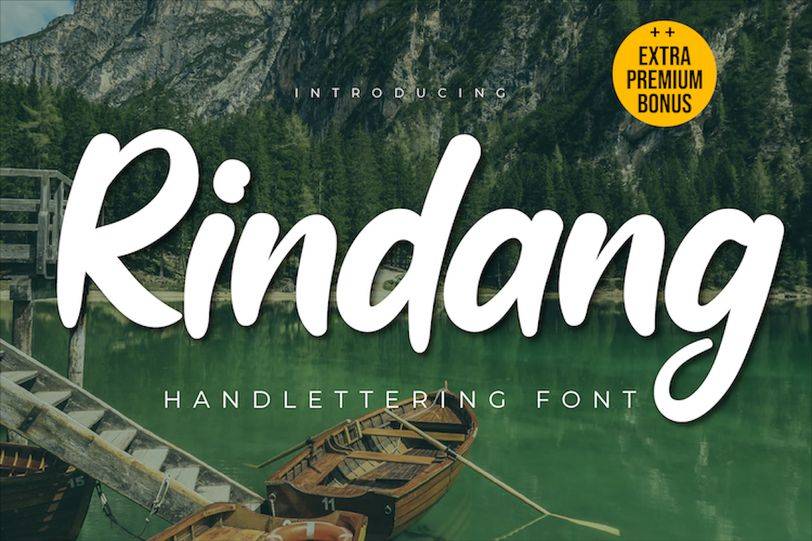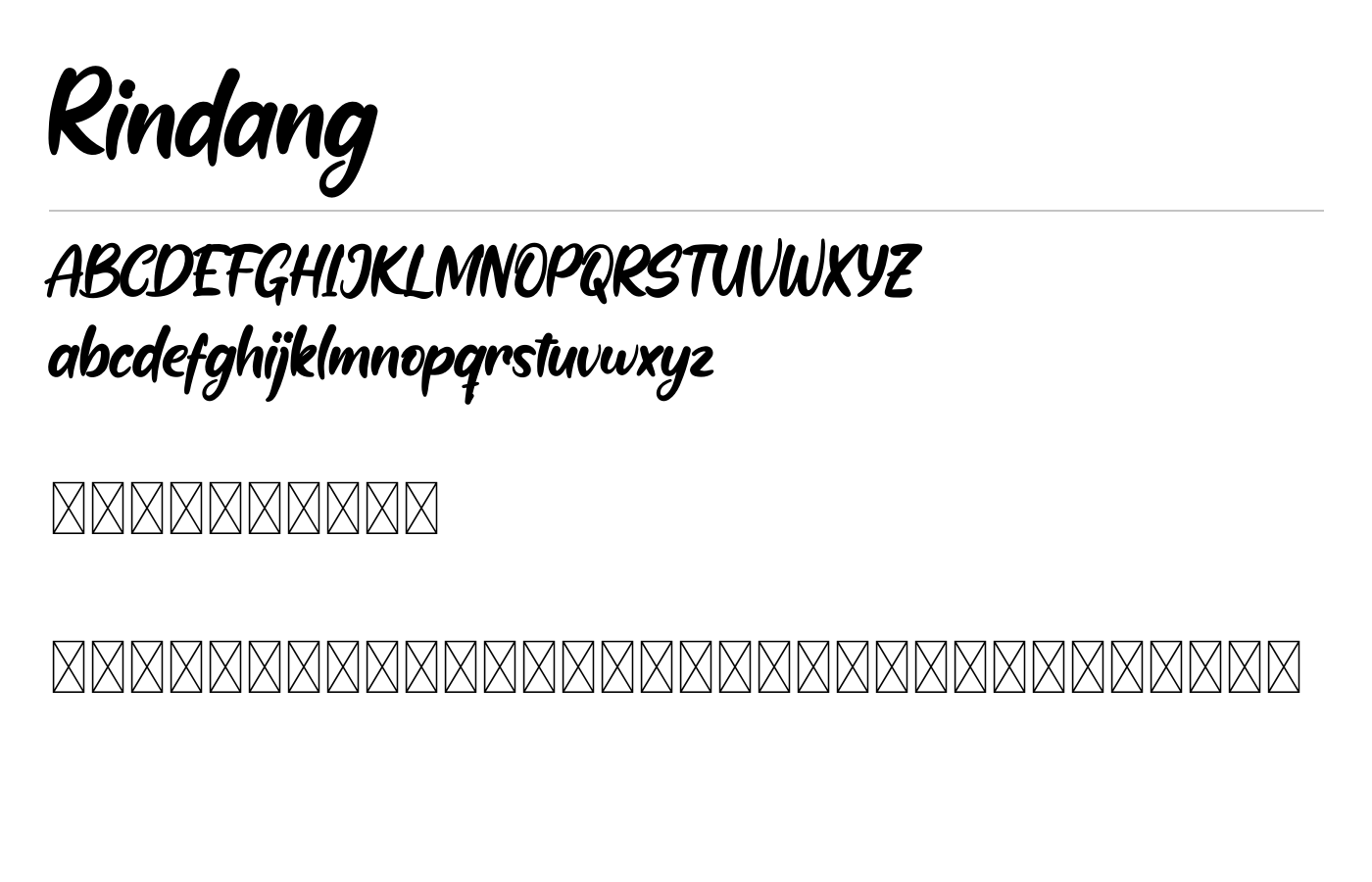
Rindang is a lively, handwritten script font with a bold weight and fluid strokes that give it a friendly and energetic personality. Its casual, slightly slanted letterforms with smooth, rounded edges make it perfect for creative projects, branding, and headlines that need a personal, approachable feel. This font works well in informal contexts like social media graphics, invitations, and playful packaging where warmth and expressiveness are key.
Rindang Font
About Rindang Font